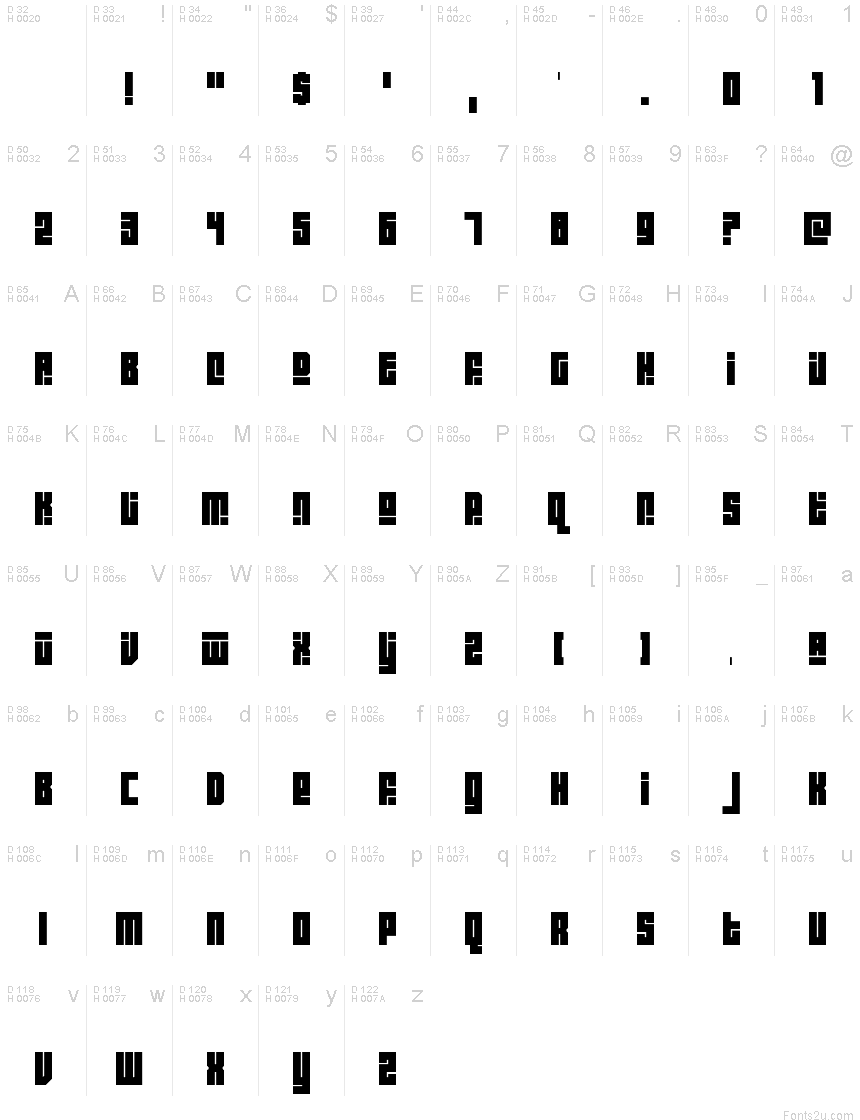
Block Out by cablecomputer of FontStruct is a free techno display font with towering, tightly packed letterforms and a stark architectural profile. Narrow channels cut through broad rectangular masses, with occasional angled notches breaking the otherwise rigid geometry.
Designers working in electronic music, gaming, or futuristic event culture can use it for posters, title cards, and merchandise. Across those settings, the compressed forms suggest illuminated panels, circuit paths, and severe modernist structures rather than ordinary lettering.
Block Out